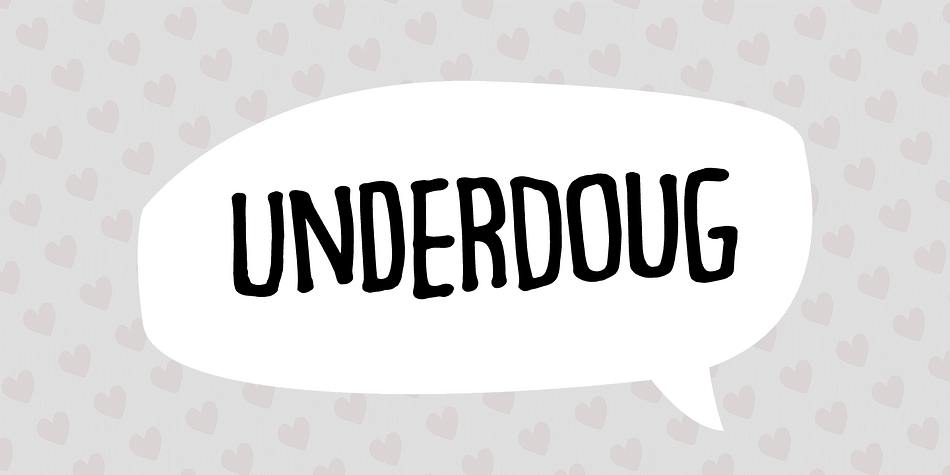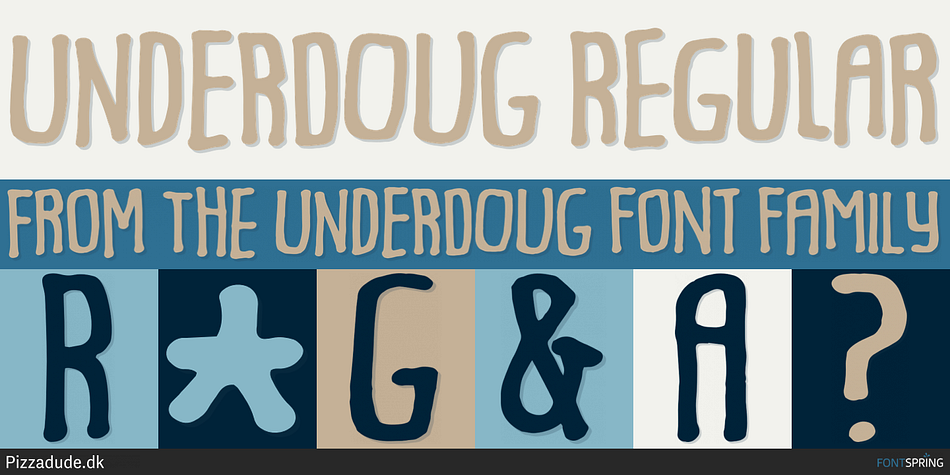
UNDERDOUG REGULAR
Designed by Jakob Fischer, Underdoug is a hand drawn and hand display font published by Pizzadude.dk.
All caps font with squarish letters. At first sight, it may look a little bit ordinary, but watch it with massive text - then you will notice the bounciness and the contextual alternates that automatically switches between the 5 different versions of each letter!